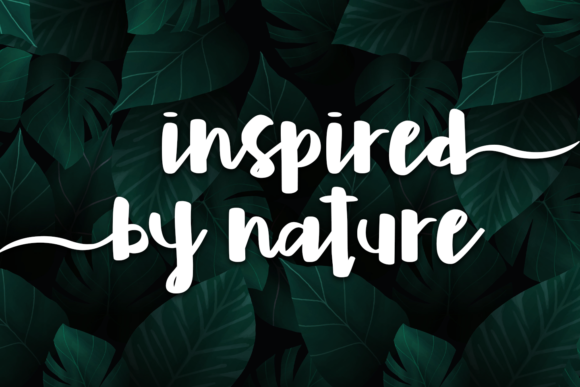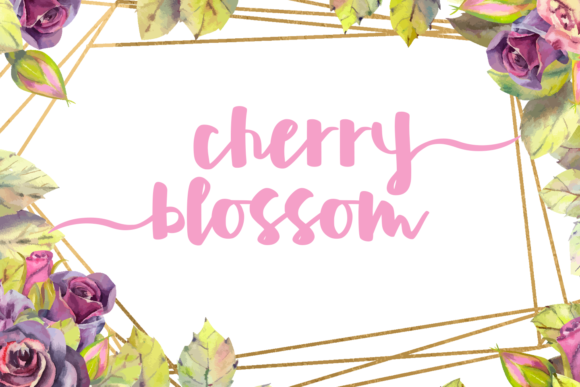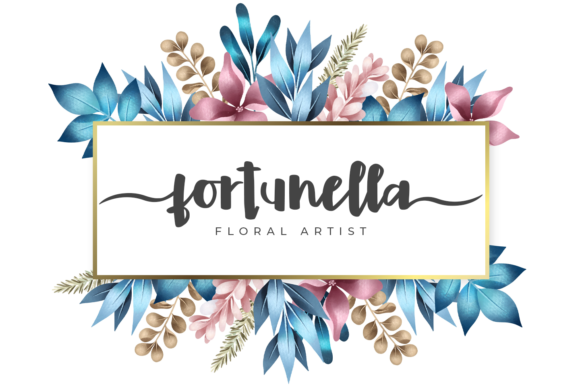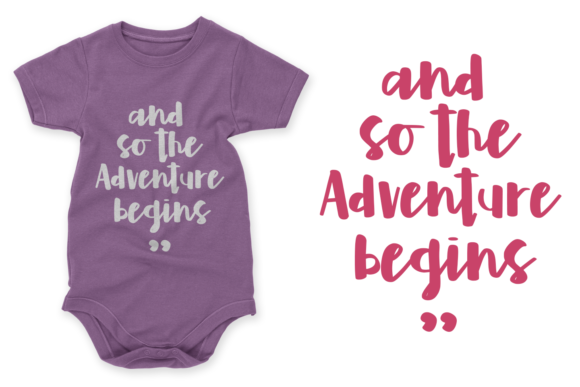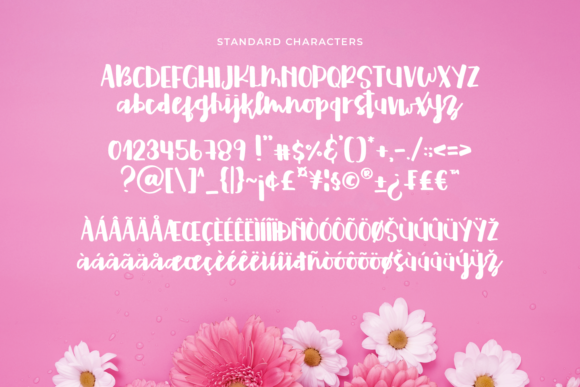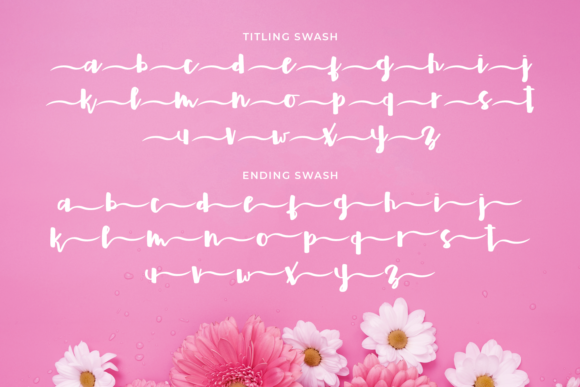
The Fostella Font: A Friendly and Cute Handwritten Delight
Have you ever been in the middle of a design project, and suddenly, you just can’t seem to find the right font? I recall a particularly frustrating moment when I was working on a DIY craft project, and my client’s request for a “friendly and approachable” font had me stumped. That’s when I stumbled upon Fostella, a cute and casual handwritten font that instantly won me over. In this article, we’ll dive into the world of Fostella, exploring its features, uses, and some helpful tips and tricks.
A Personal Review of Fostella
What I Love About Fostella
- ✨ Its incredibly friendly feel makes it perfect for designs that require a personal touch.
- ✅ The casual, handwritten style is versatile and works well for various creative projects.
- 💫 Fostella’s unique charm makes it an excellent choice for Instagram graphics, calligraphy scripts, and DIY projects.
- 🎨 The font’s artistic and expressive nature allows for endless creative possibilities.
While Fostella is an amazing font, there are a few minor quirks to be aware of:
- 🤔 Some users might find the font’s casual nature too relaxed for formal projects.
- ⚠️ As with many handwritten fonts, Fostella’s readability can be limited at very small sizes.
The Backstory of Fostella
Fostella was designed with the intention of creating a friendly and approachable font. The designer aimed to craft a font that would evoke a sense of warmth and personality, perfect for creative projects that require a human touch. While the designer’s true identity remains a mystery, their creation has captured the hearts of designers and crafters worldwide.
| Font Name | Fostella Font |
| Author | Abodaniel |
Q: What type of projects is Fostella best suited for?
A: Fostella is perfect for DIY projects, Instagram graphics, calligraphy scripts, and any design that requires a friendly and approachable feel.
Q: Is Fostella a difficult font to read?
A: While Fostella is a handwritten font, it’s generally easy to read. However, as with any font, readability can be limited at very small sizes.